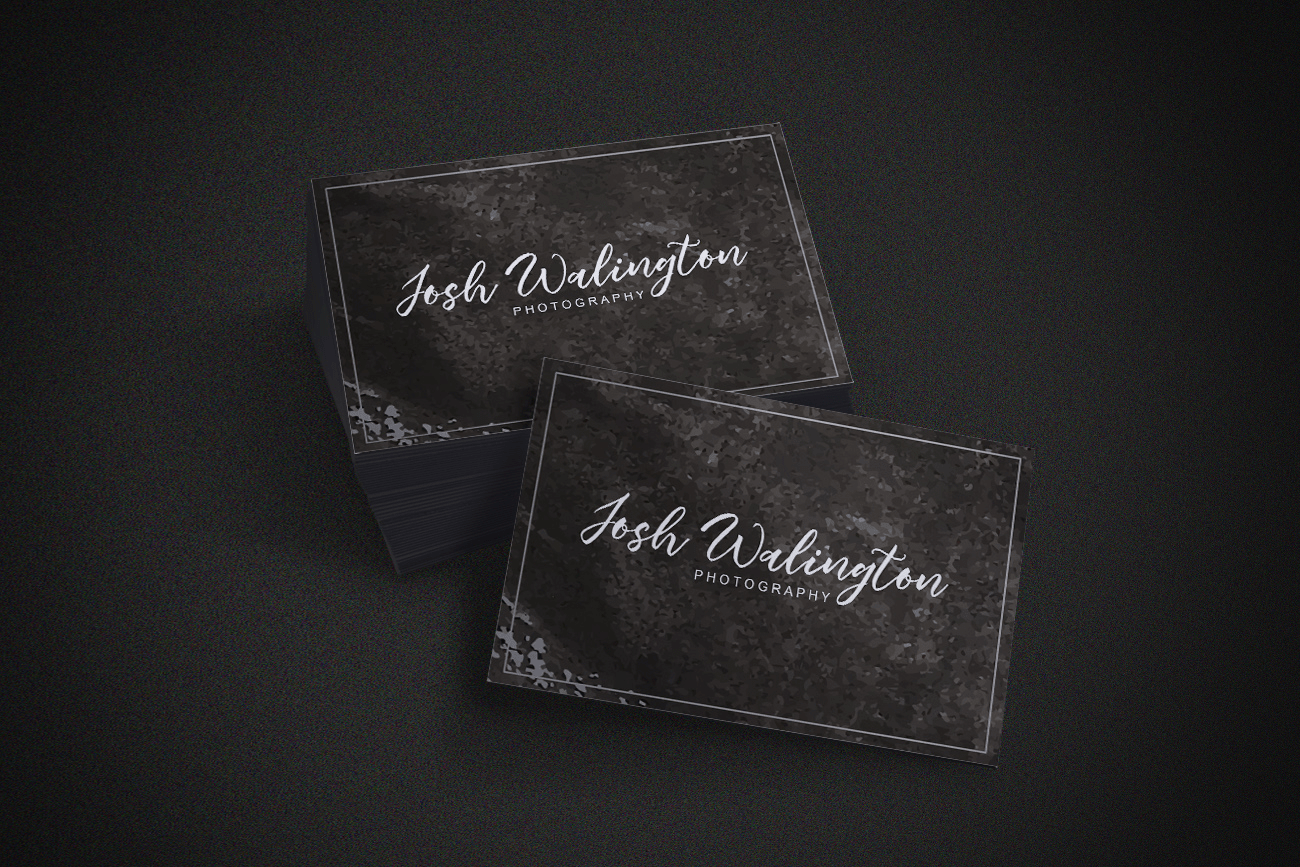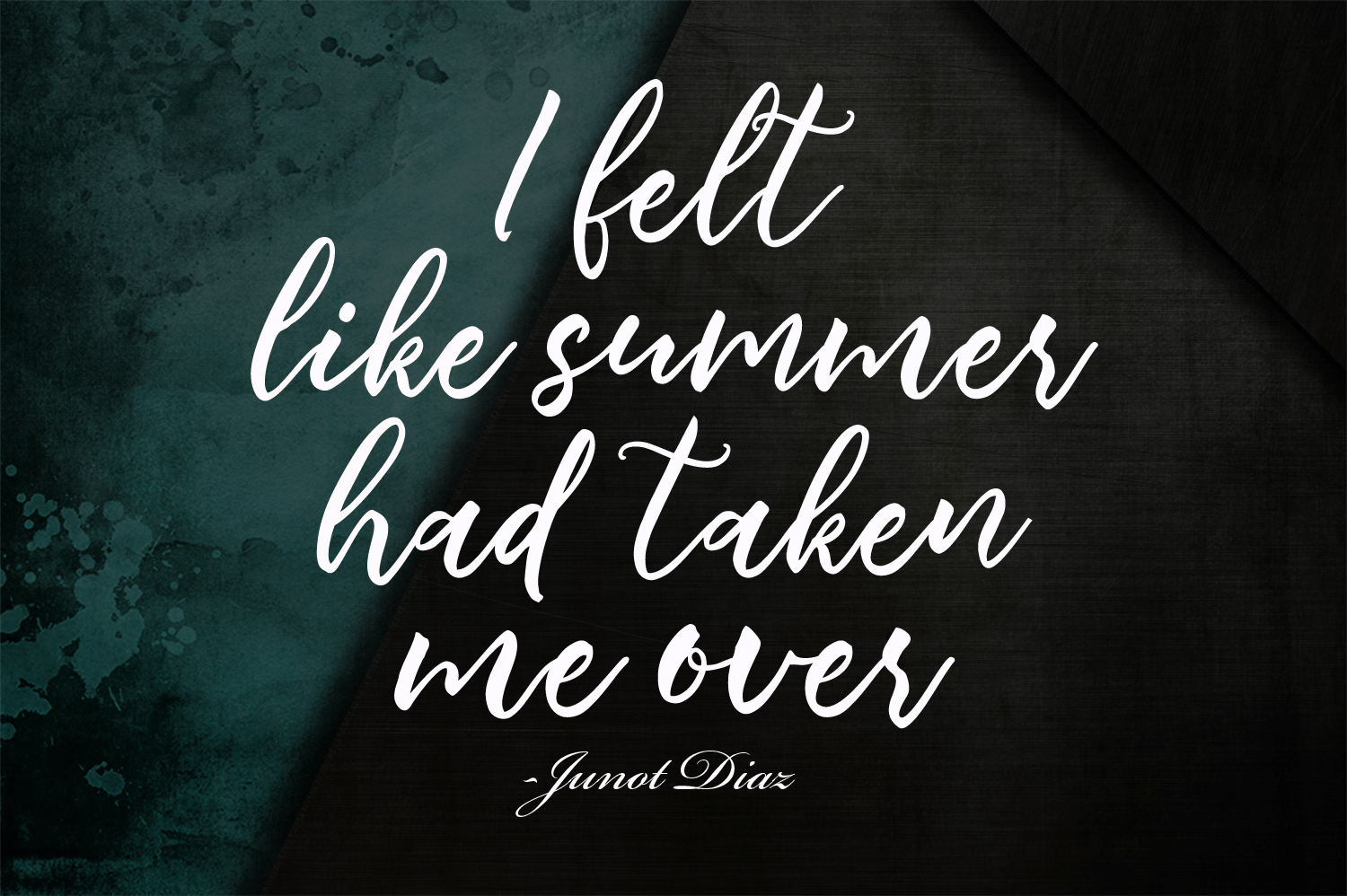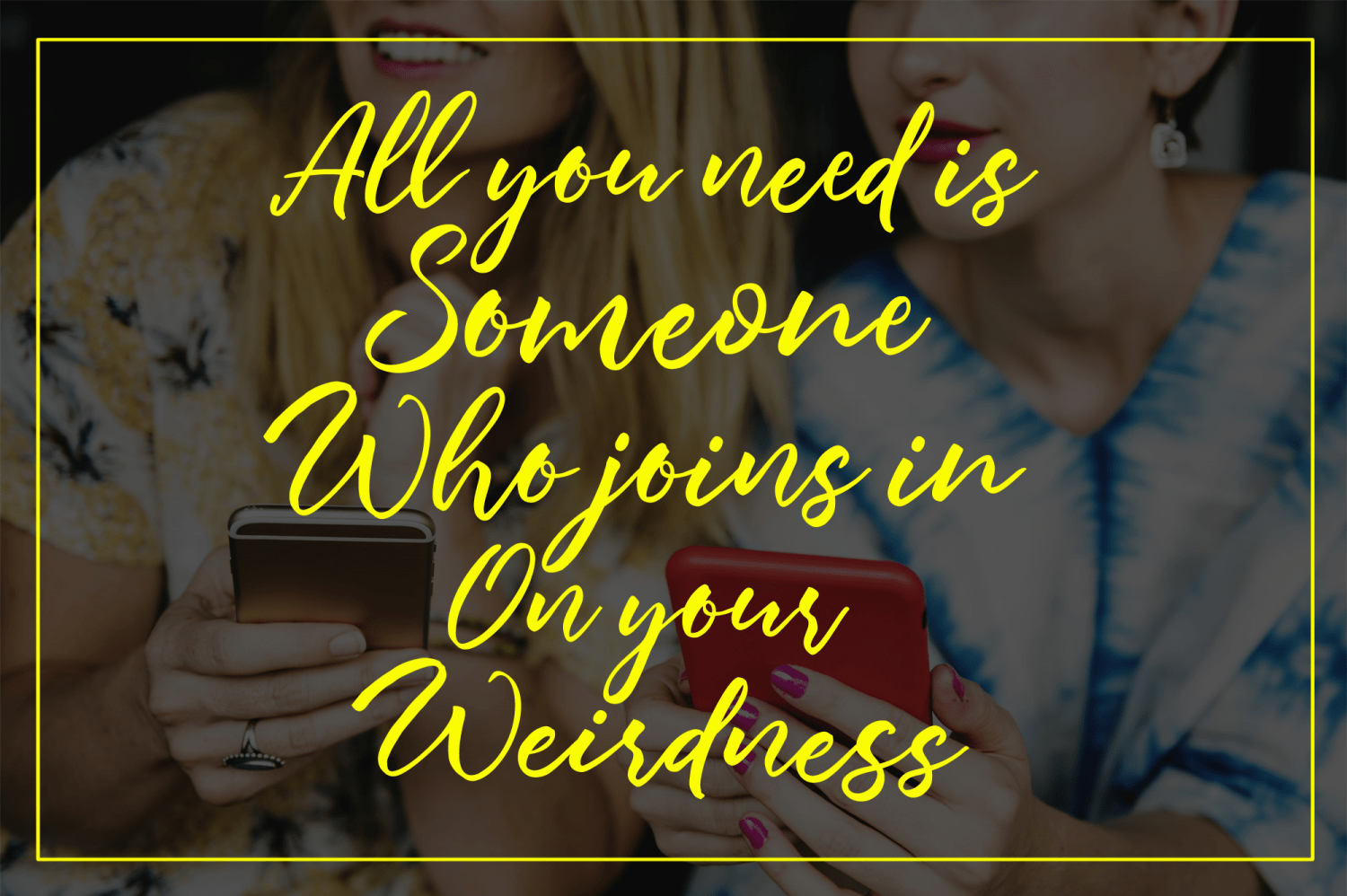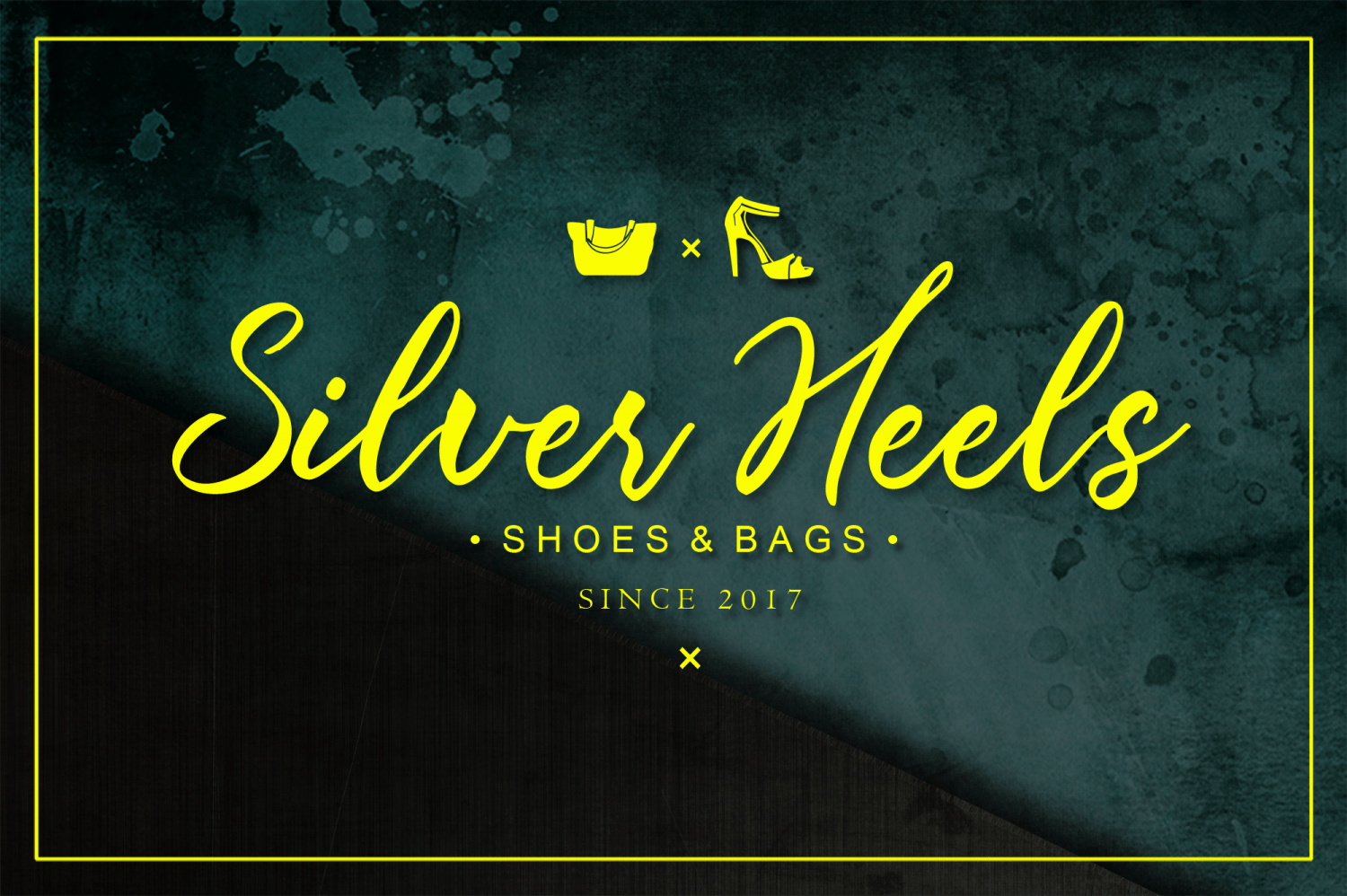
About Summertime
It\’s Summertime!! Handwritten font with a signature style. Perfect for branding projects, homeware designs, product packaging or simply as a stylish text overlay to any background image. Alternates! Summertime has an entire alternate lowercase glyph…